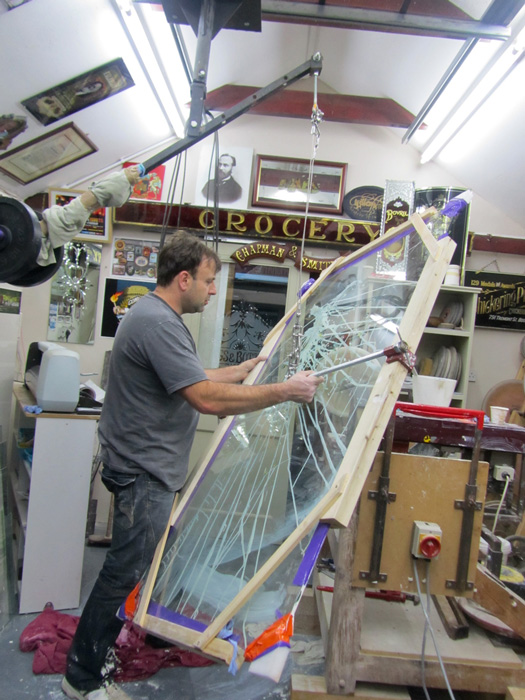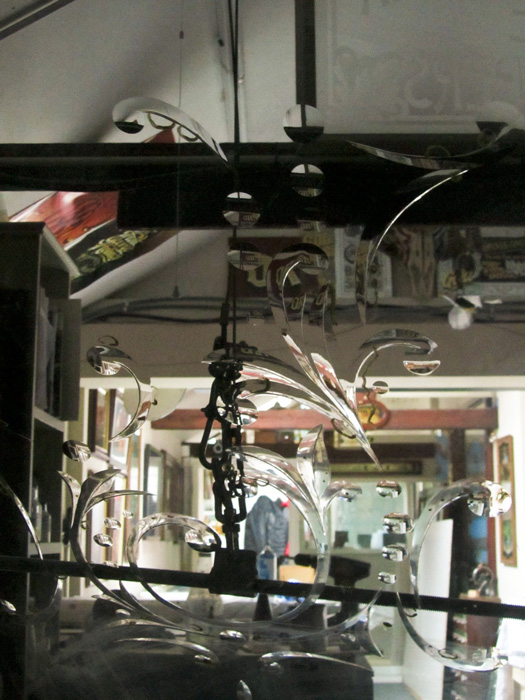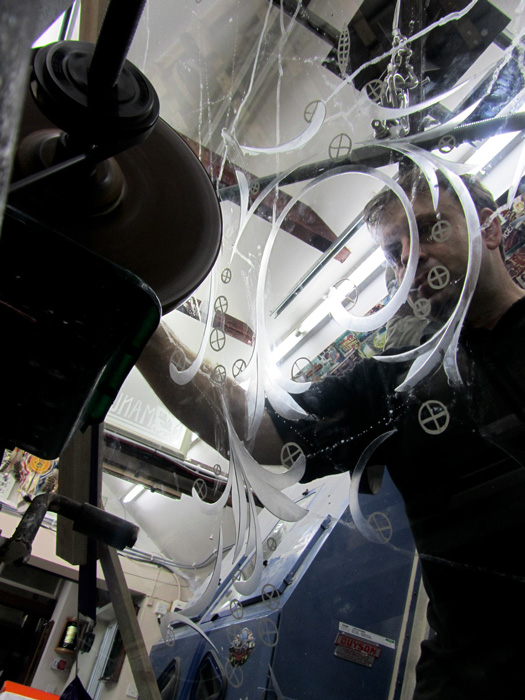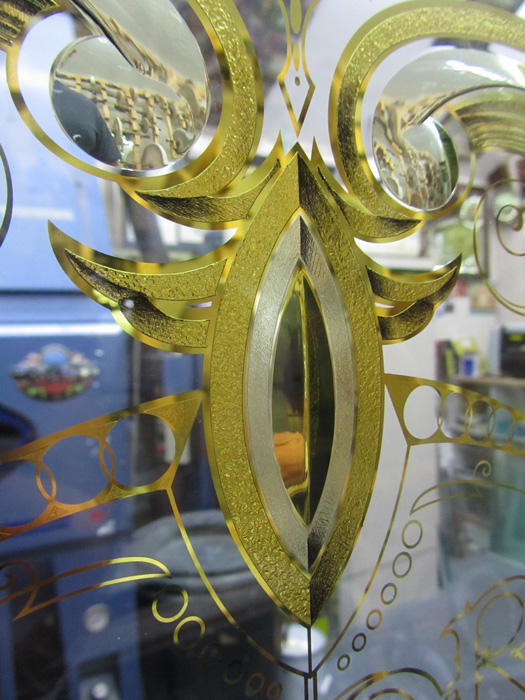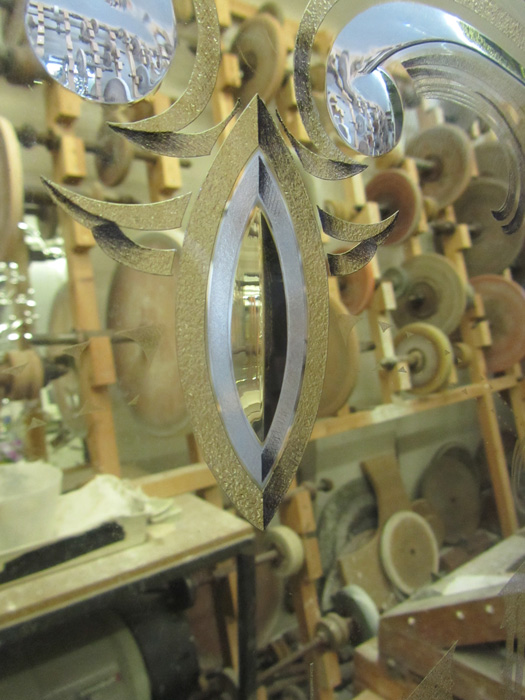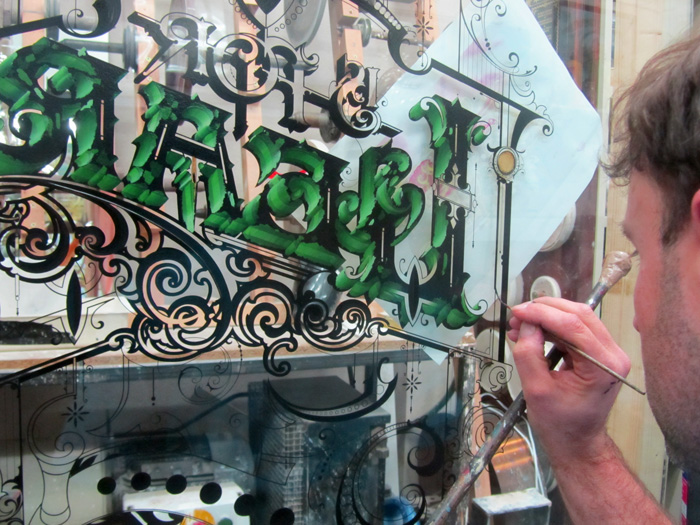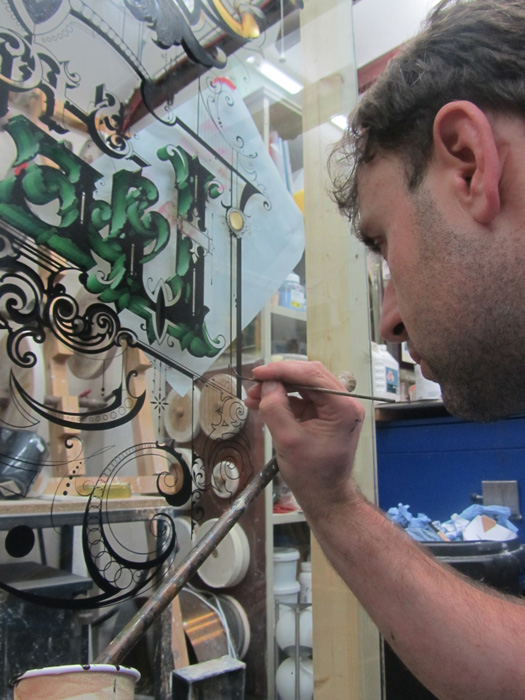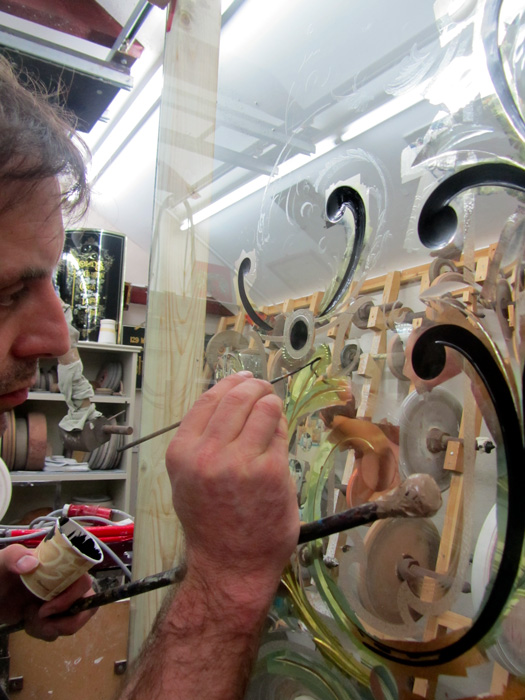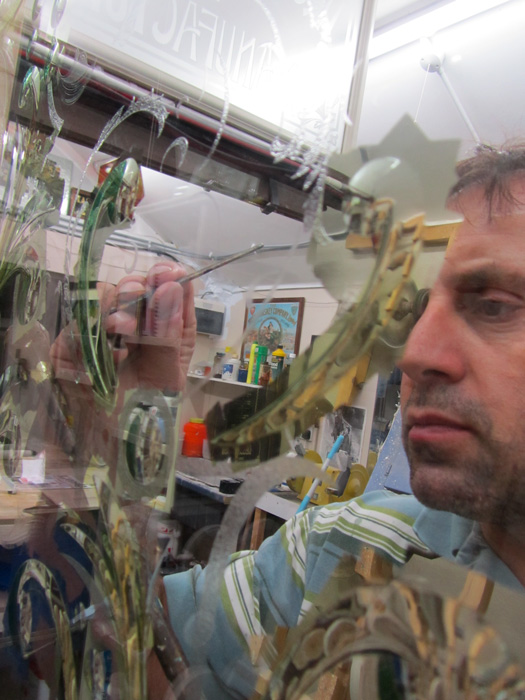
Lear
Making this glass panel for the poet Edward Lear nonsence alphabet, do a google search on him , it is a commision piece from the Liverpool Council. Lots of artist working on different letters in other mediums including sculpture. exciting project.
The glass is 6 feet by 4 feet and half inch thick was interesting to see if my counter balance would take such weight, I survived at least! gilding it this week and then into painting etc.
Wow, it is another exciting project Dave! Do you have any idea of how much that 1/2" glass weighs?
I'll bet this will be another Dy-no-mite piece of art like you always produce. Please keep us posted -
hey ron...........it should weight about 156#. 1/4" plate weights about 3.25#s per sq ft. hope you're doing well. ......and dave, thanks for taking us down another road on your journey.
Impressive and scary at the same time.
Did you do mica etching and upsidedown etching with a paint resist on this one?
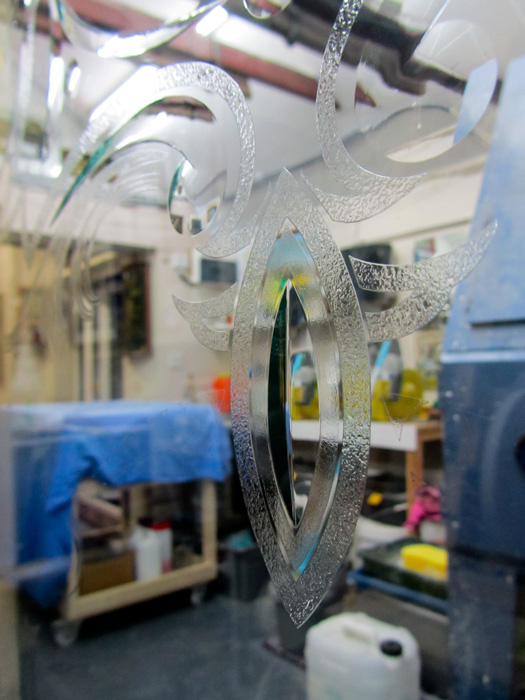
Will be interesting to see the result when these different textures are gilded.
Erik. This was two different stipples of mica all done glass facing up ,here is what it looks like with some gold and 12 crt leaf on. also some details from the back side with some blended shadows.
That looks fantastic Dave. Man, whenever you post your work I realize that I need to push myself a lot more.
Ron , Vance, Rod Thanks . The weight was certainly very heavy I know at the time of cutting I had 2 25 kilogramme weight training plates on the end.It was kind of hard in a small space to do the cutting but I managed to fight each object as I came to it. I think I could go bigger on panel size but would need more height for this type of cutting. all a learning curve....
That panel is looking really good.
Please keep us updated, it is refreshing to see you producing these gilded jewels.
Blimey.. Ain't you finished that yet ?
.. c'mon Dave --we wants t' see what her looks like frum the front !
Here is some of the near final images of this artwork. I still need to apply the abalone shell to the clear areas in the letters and borders etc. Driving it to Liverpool on Friday. Taken longer than expected due to waiting for paint to dry. Should hopefully fit in nicely with the other letters of this Lear Alphabet..
A few more picks just show some closer detail .The Brilliant cutting blends from 12,18 to 22 crt goldleaf.This was a tricky part and I was forever cleaning the glass because of the amount of water size running everywhere. anyway it was a fun project to be asked to make. Thanks guys.
Sorry as if there were not enough photos already so please excuse this amount. I put the pearl on and took some photos to show you some more closer detail on how it looks with abalone. finished it off ready for delivery now.
Dave the centre of this letter A is brilliant v cut.